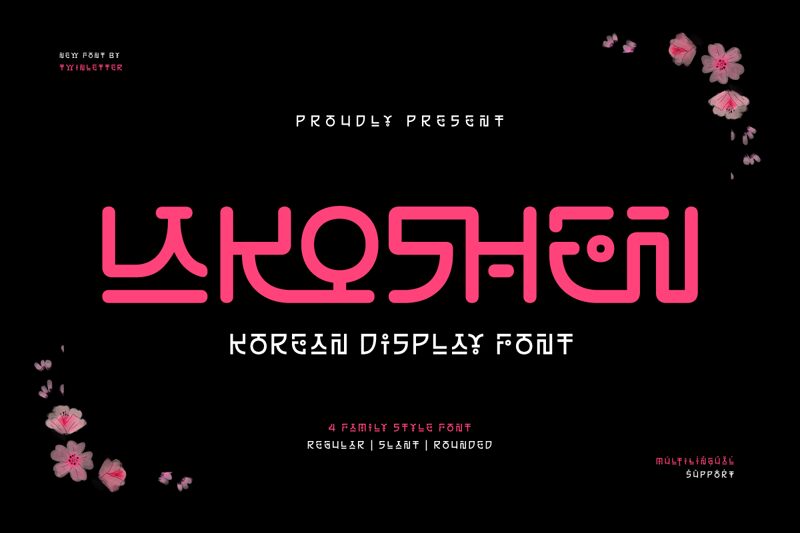
Lakoshen font, designed by Twinletter, is a free Korean font that embraces structured geometric shapes with a minimalistic touch. The abstract style comes with noticeable modernist influences and has a retro-futuristic feel to it. The evident simplicity adds an elegant charm to this unique display typeface.
Use this resource in branding projects, logo design, typography systems, headers, posters, product & packaging design and covers of all sorts. It is especially suitable for projects with Asian backgrounds including themes related to Kpop music or Korean traditions in general.